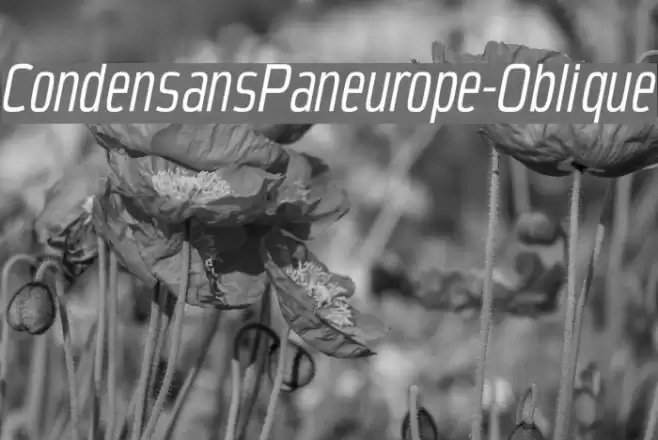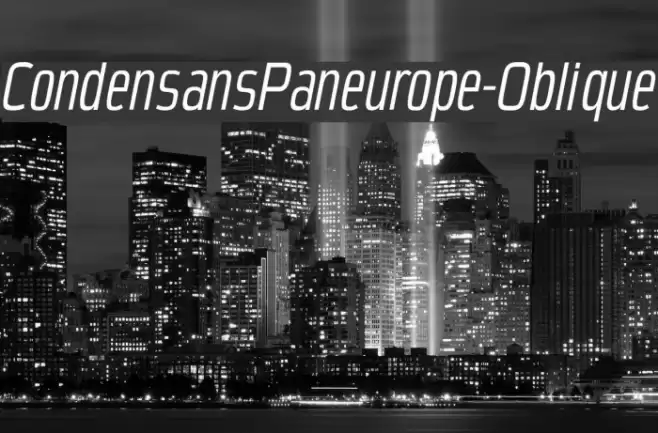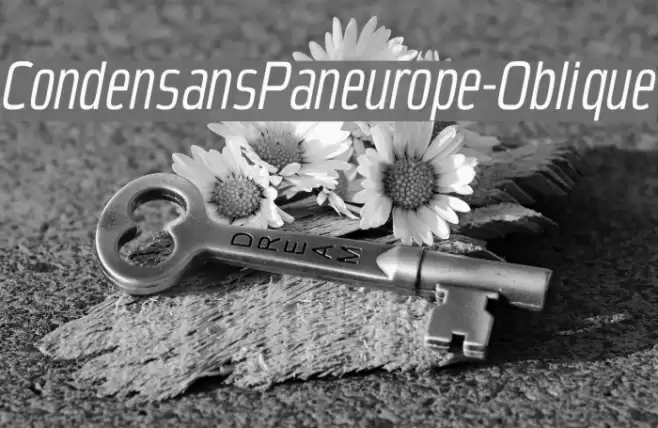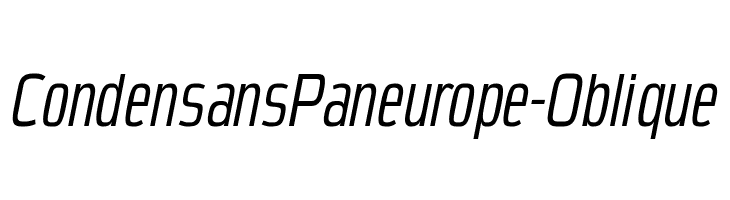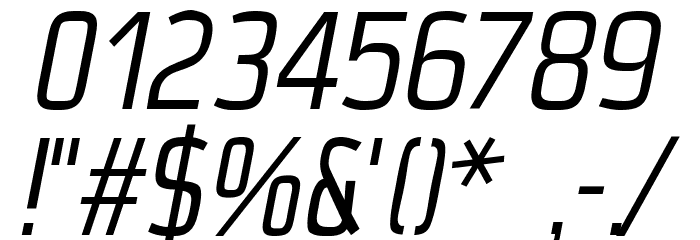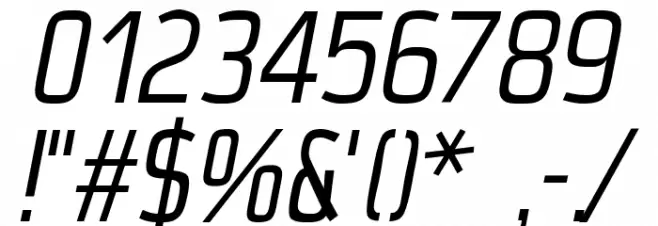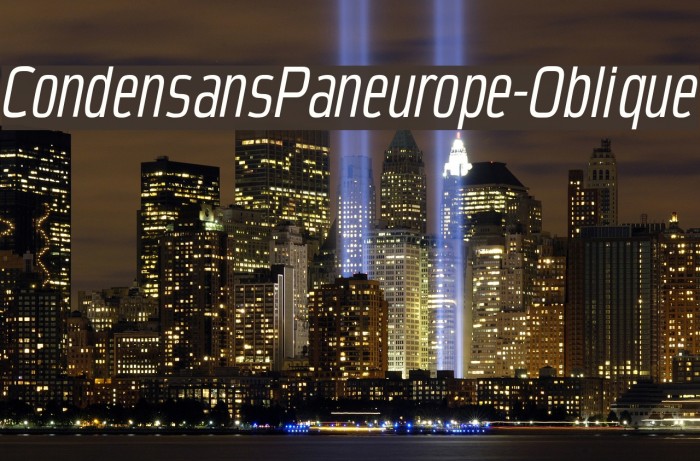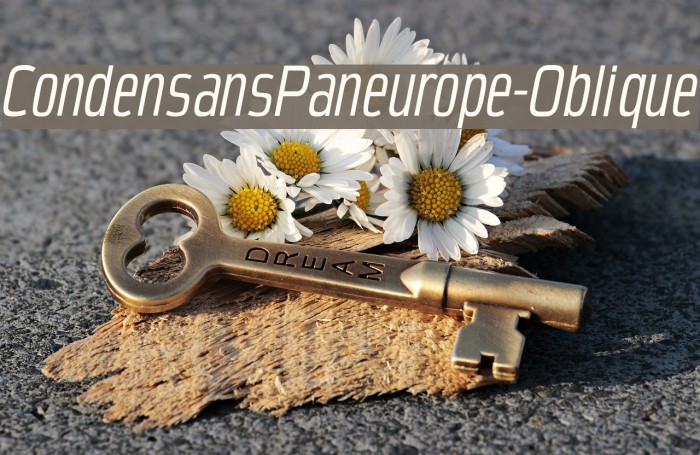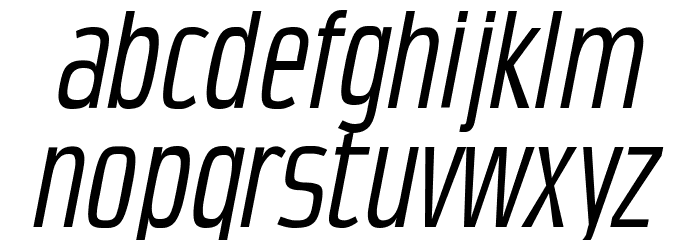
CondensansPaneurope-Oblique Font
CondensansPaneurope-Oblique Description
This font features a sleek, modern design with an oblique orientation, giving it a dynamic and forward-leaning appearance. The characters are condensed, allowing for efficient use of space while maintaining readability. The strokes are consistent in thickness, providing a uniform look across all characters. The uppercase and lowercase letters are well-proportioned, and the numerals are clear and distinct. Special characters are included, offering versatility for various applications. The overall style is contemporary, making it suitable for modern design projects.
A modern, oblique, and condensed font with consistent stroke thickness from Uncategorized fonts.
- Proposed Projects: Ideal for branding, advertising, and editorial design where a modern and dynamic look is desired.
- Use Case: Headlines, Logos, Advertising